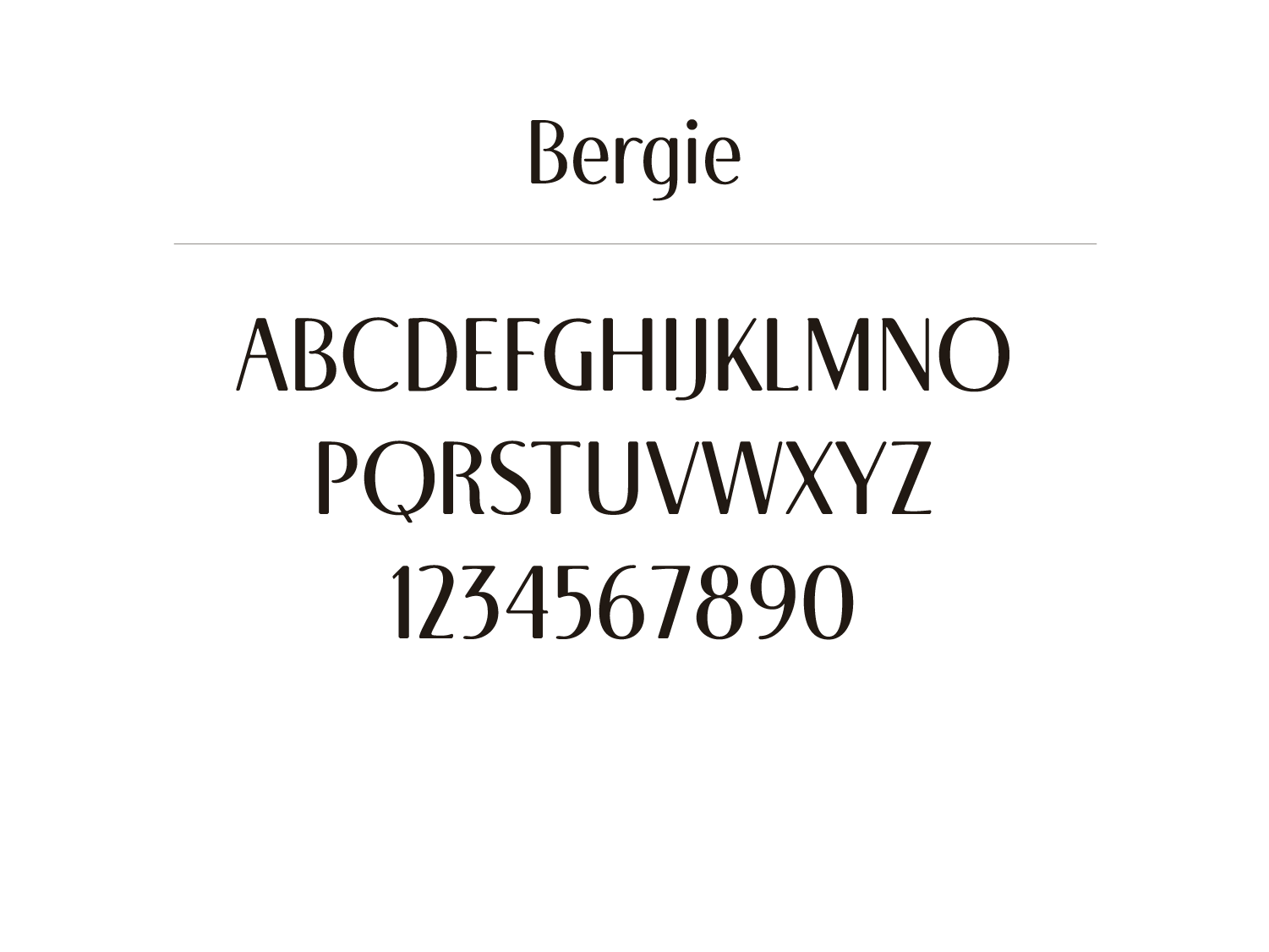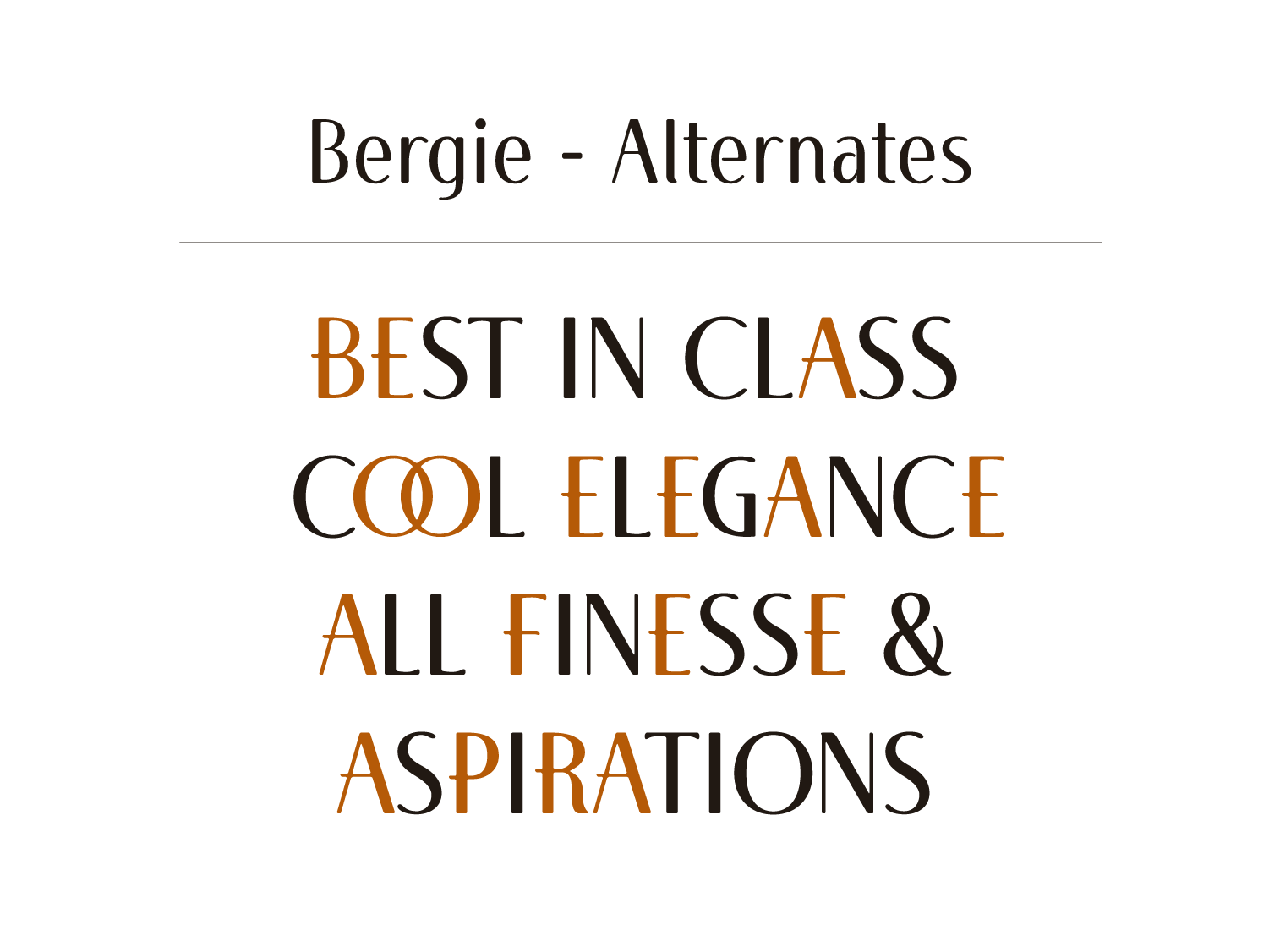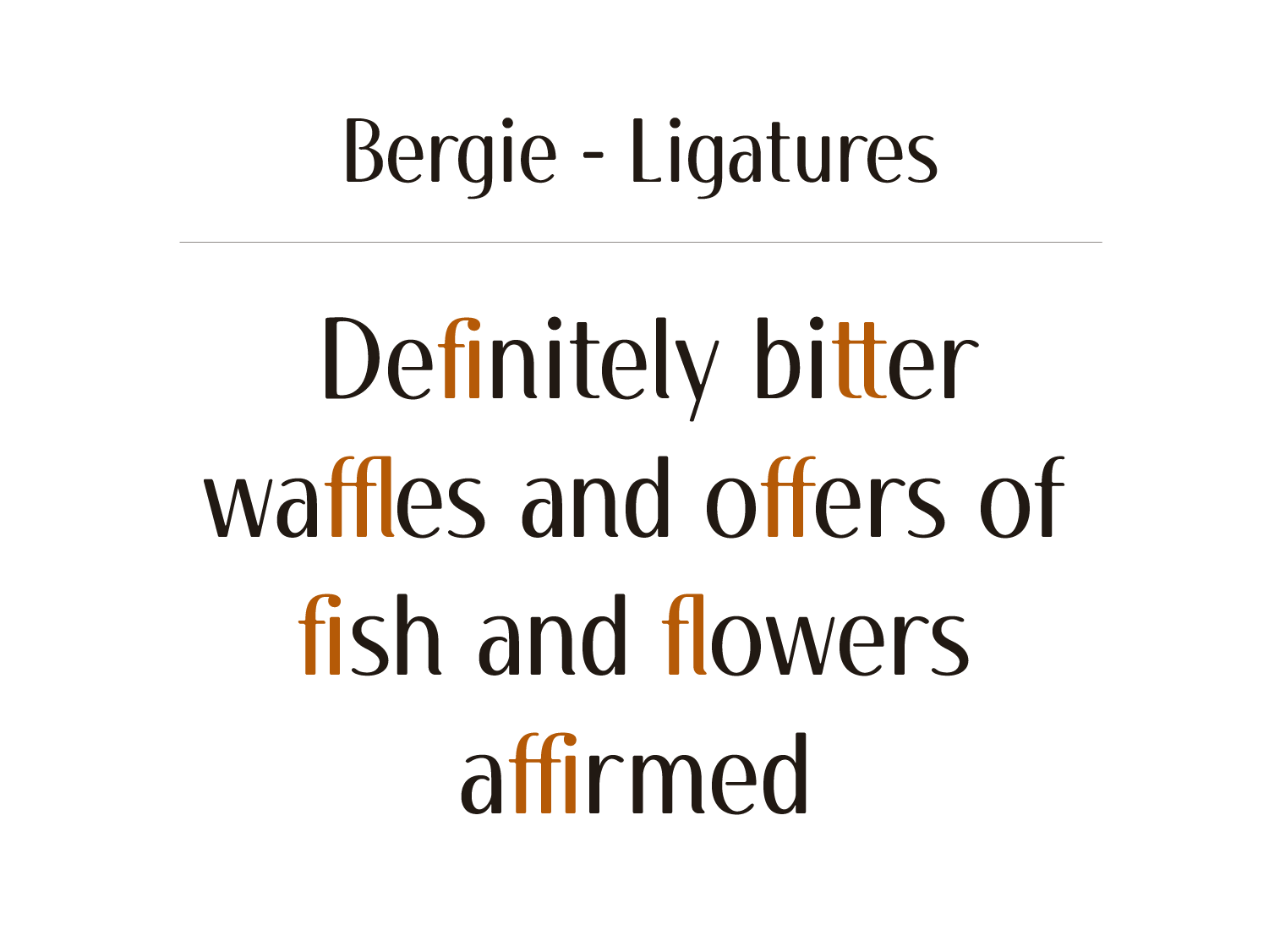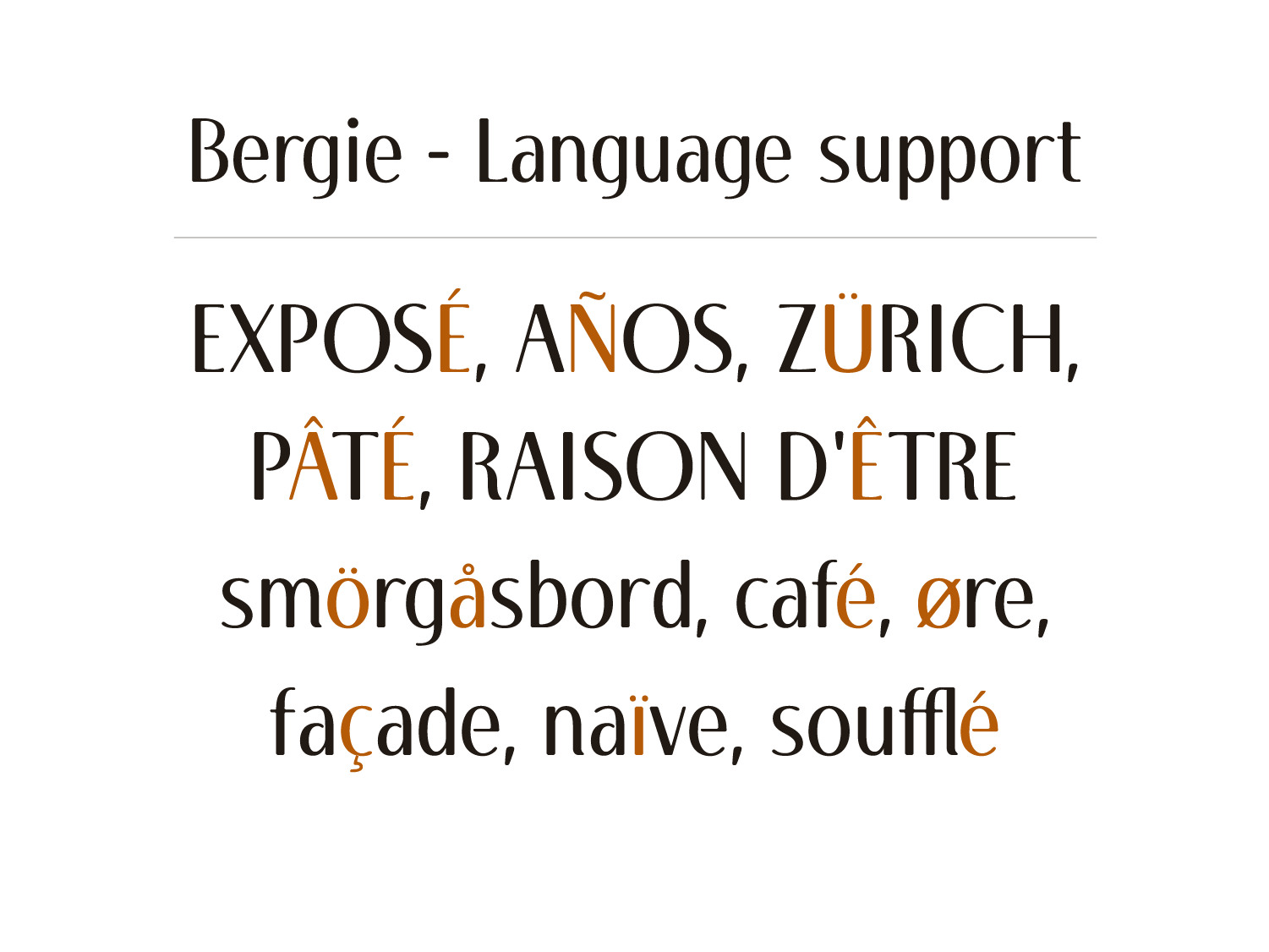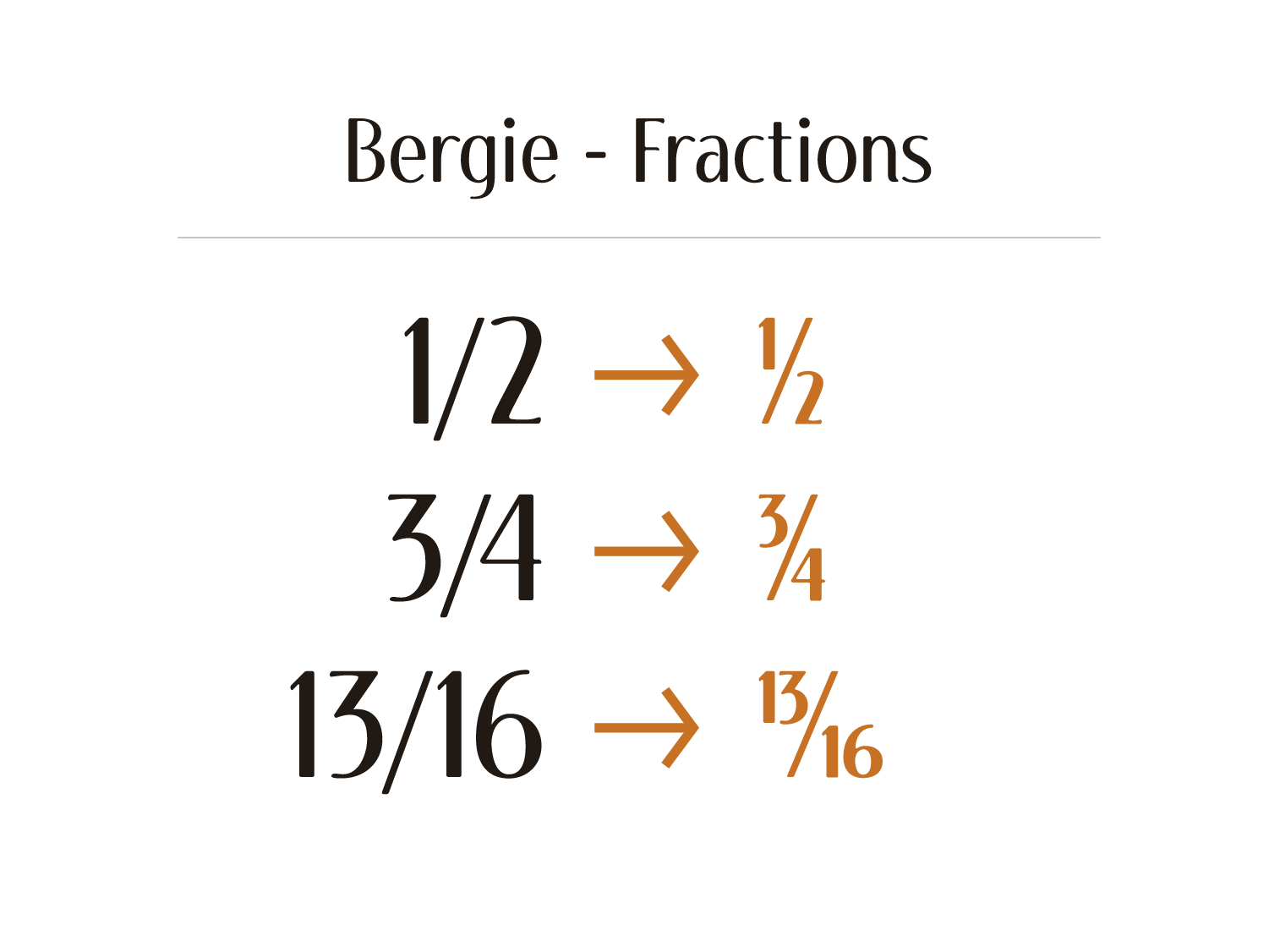
Someone once asked me to do their mother’s name in the style of the Bergdorf Goodman logo. When I looked at the Bergdorf Goodman logo I knew it would make a fun font project. It has a luxury vintage style, like something out of a 1920s fashion magazine. It looks great in all caps, and the alternate characters can dress it up even more. The addition of lowercase gives the font more utility. There is also a set of numbers to match the style. It would be great for branding projects, product packaging, signs, magazine headers, etc.